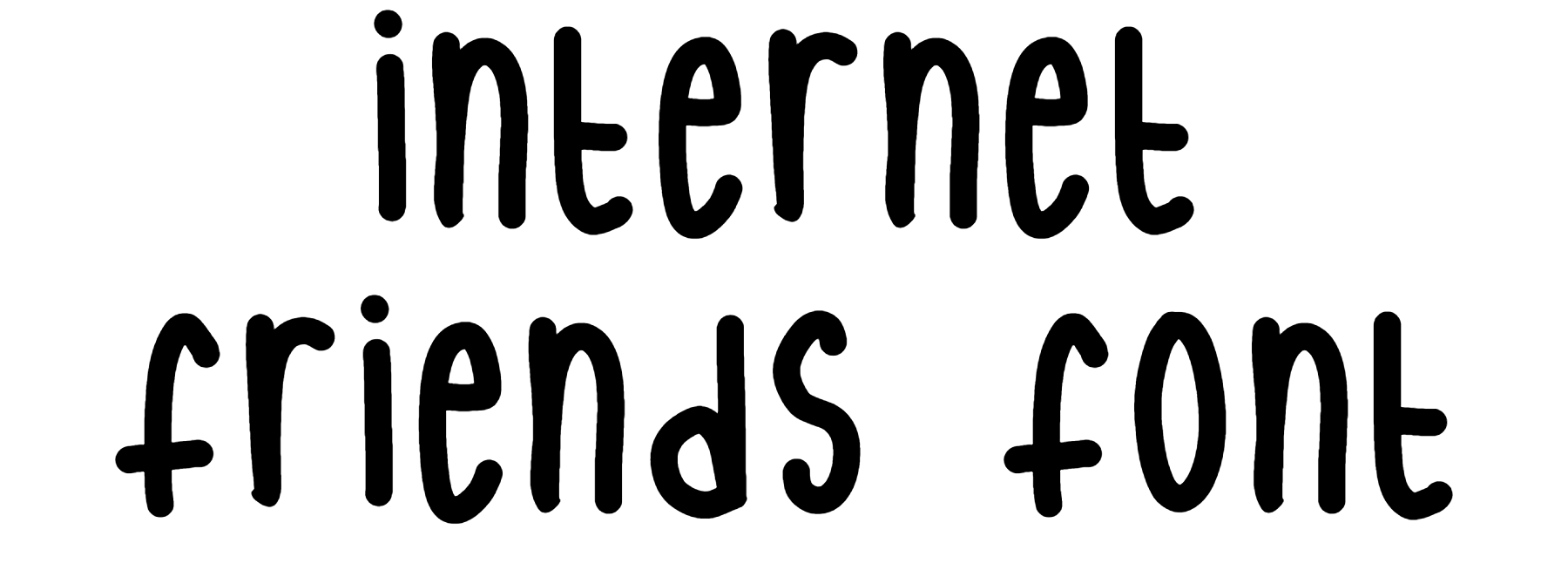
Internet Friends Font
Internet Friends
Internet Friends is a handwritten font. The letters have the small wobbles and personality of real handwriting, so your text feels warm instead of printed. You can download it for free and test it with your own words in the preview above.
You get every letter from A to Z in both cases and all the numbers from 0 to 9, which means Internet Friends can handle full sentences, dates and prices. Everyday marks like &, !, ? and @ are there too. There are no accented letters like é or ñ, so it's best kept to English text.
Designers usually reach for fonts like Internet Friends when they're making greeting cards, journal pages and friendly social posts. Set it a bit larger than you would a normal text font. Handwriting styles lose their charm once they get too small to read comfortably.